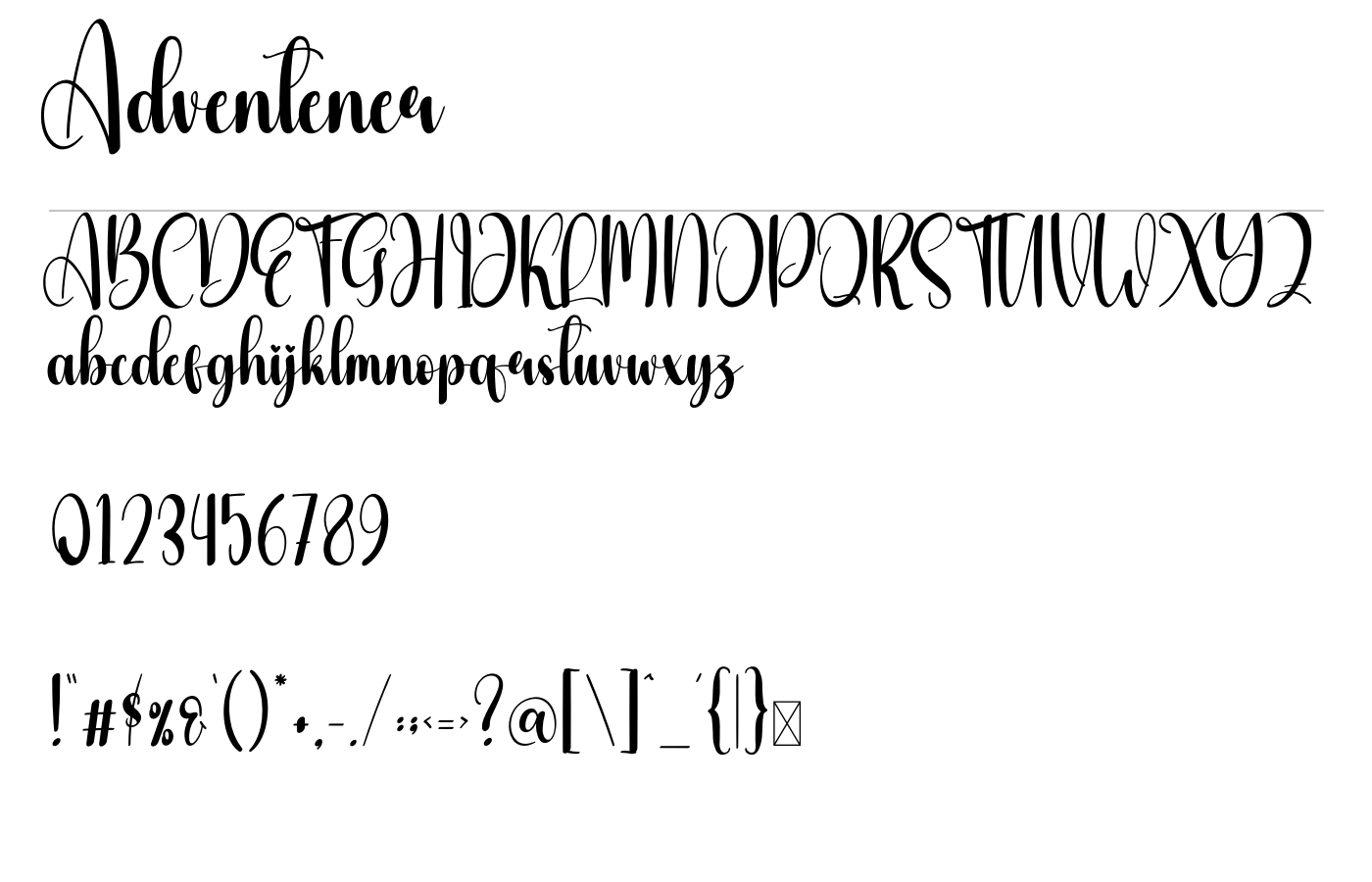
Adventener is a stylish script font characterized by its elegant, flowing letterforms with a high contrast between thick and thin strokes. Its tall, slender uppercase letters combined with a more solid, connected lowercase create a sophisticated and graceful feel. Ideal for invitations, branding, and decorative projects, Adventener adds a touch of refined charm and personality to any design.
Adventener Font
About Adventener Font